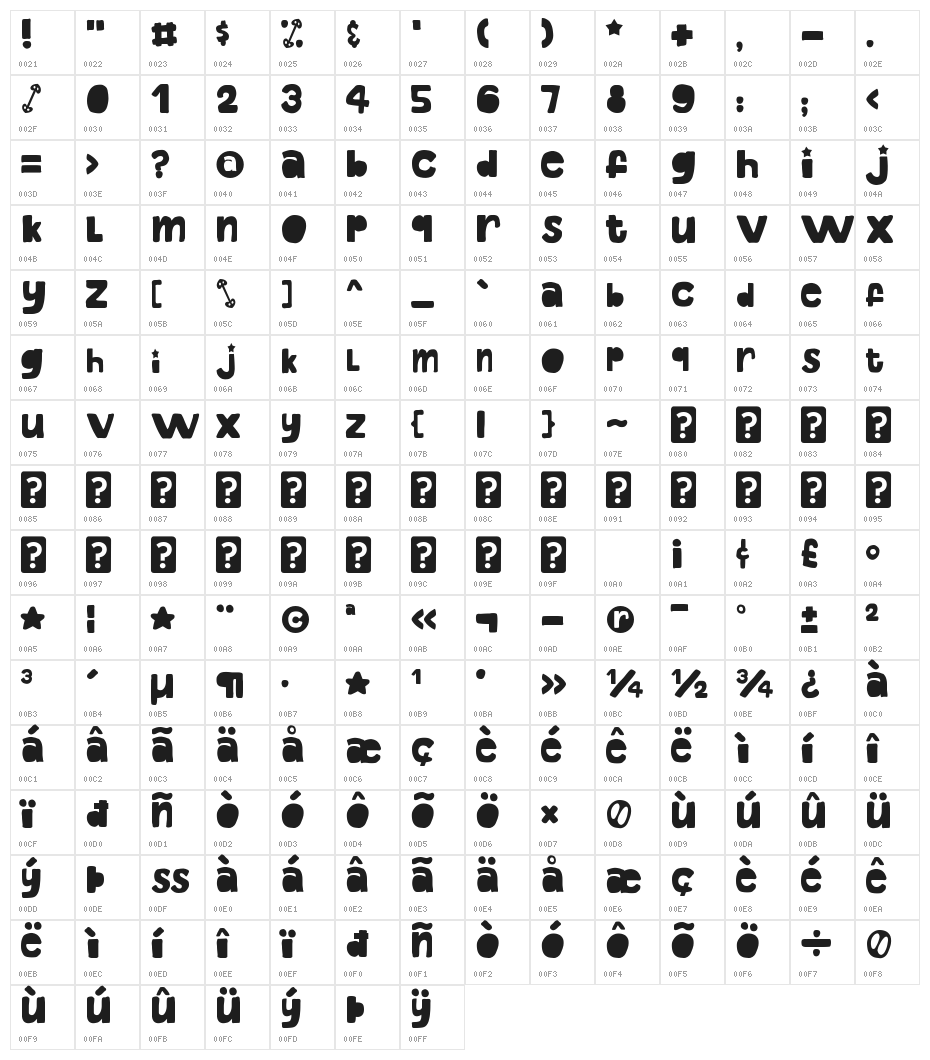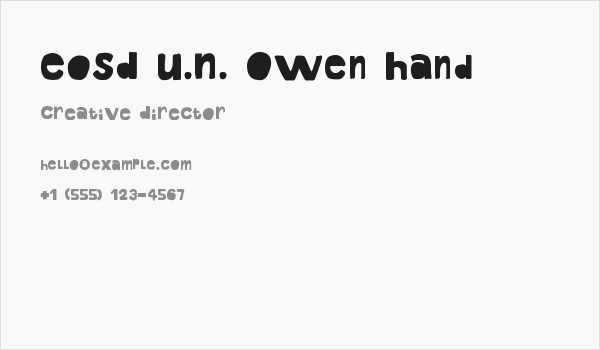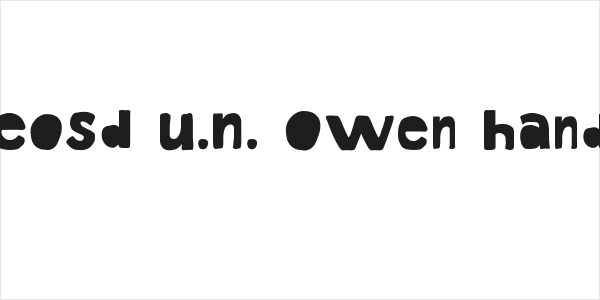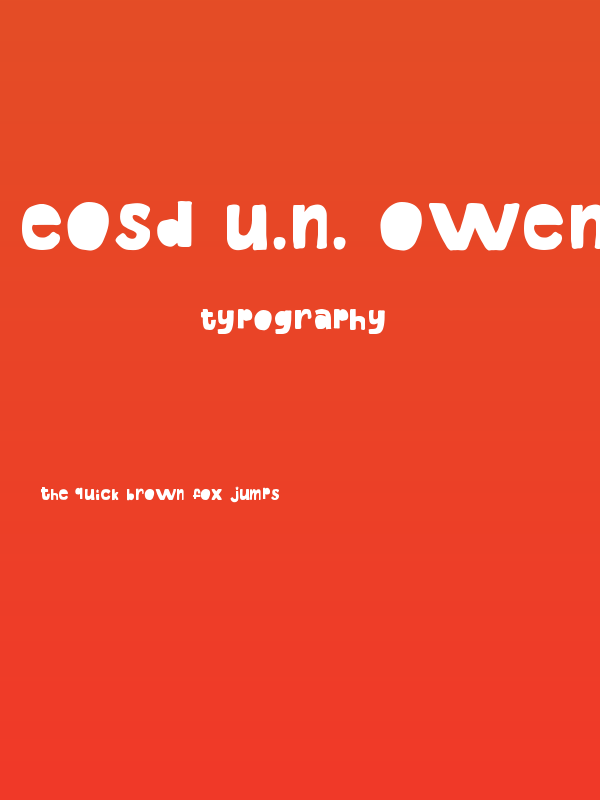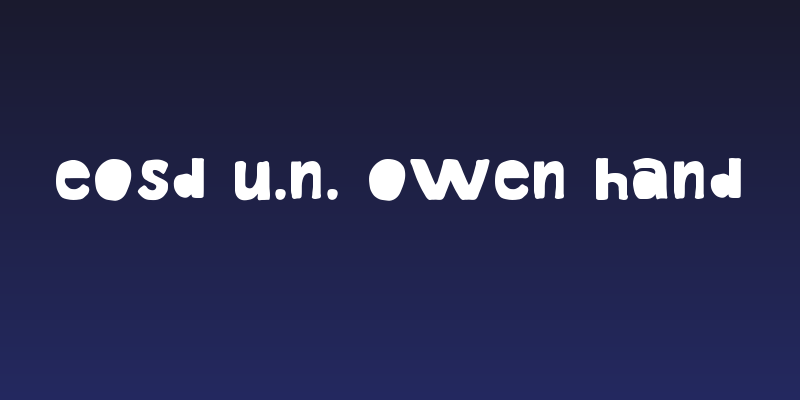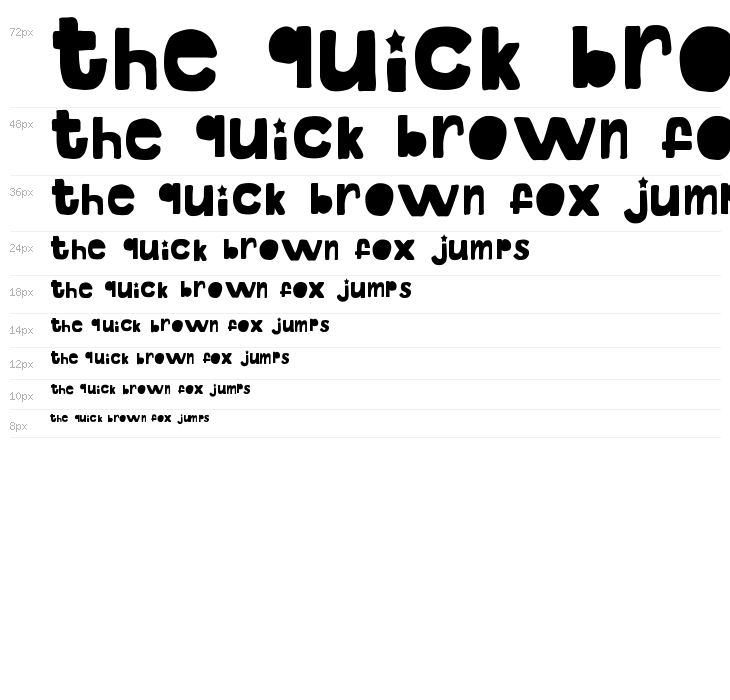
EoSD U.N. Owen Hand Font
EoSD U.N. Owen Hand Description
This font features a playful and bold design with rounded edges and a whimsical touch. The characters are thick and have a consistent weight throughout, giving them a strong presence. Unique elements such as stars incorporated into the letters add a decorative flair. The numbers and special characters maintain the same boldness and rounded style, ensuring uniformity across all glyphs. This font's distinct style makes it stand out, with a fun and engaging appearance that captures attention.
| Overall Style | Playful, Decorative |
| Proposed Projects | Ideal for children's books, playful branding, posters, and creative projects that require a fun and engaging typeface. |